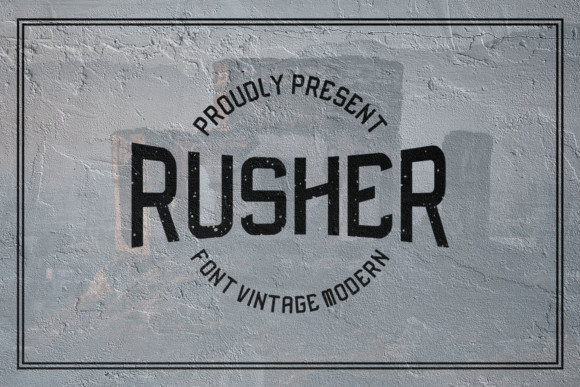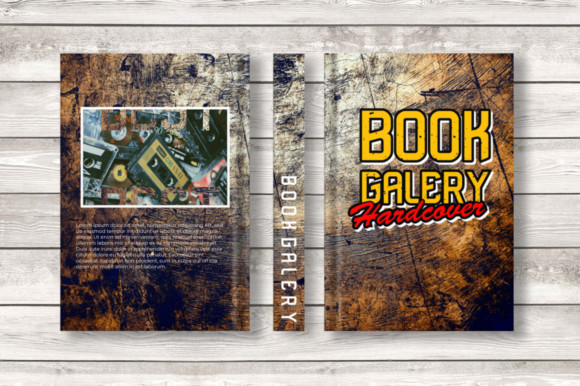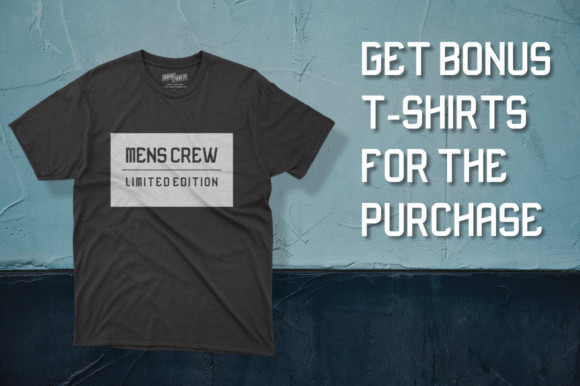
Rusher Font
Rusher is a cool, vintage styled display font. Rough textured and unique, this font will make each of your designs look out of this world.